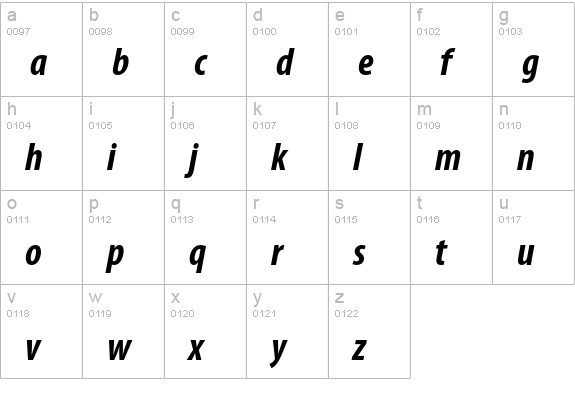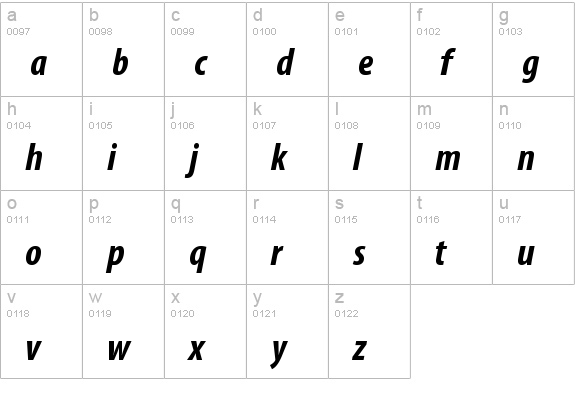
Myriad Pro Bold Condensed Italic Font Details
Myriad Pro Bold Condensed Italic is a strong, high-contrast, condensed-width, italic variant in the Myriad typeface family \xE2\x80\x94 well suited to headlines, attention-grabbing titles, and strong calls-to-action.
Myriad Pro Bold Condensed Italic is a versatile and modern font that exudes confidence and sophistication. Its bold and condensed design makes a striking statement while maintaining a sense of elegance. The italicized style adds a touch of flair and dynamism to any text, perfect for capturing attention and adding emphasis. This font is a must-have for designers looking to make a bold impact in their projects. Whether used in headlines, titles, or branding materials, Myriad Pro Bold Condensed Italic commands attention and conveys a sense of professionalism. Best of all, this font is available for free download at FontsMarket.com. With just a few clicks, you can enhance your design projects with this stylish and eye-catching typeface. Don't miss out on the opportunity to elevate your designs with the timeless appeal of Myriad Pro Bold Condensed Italic.